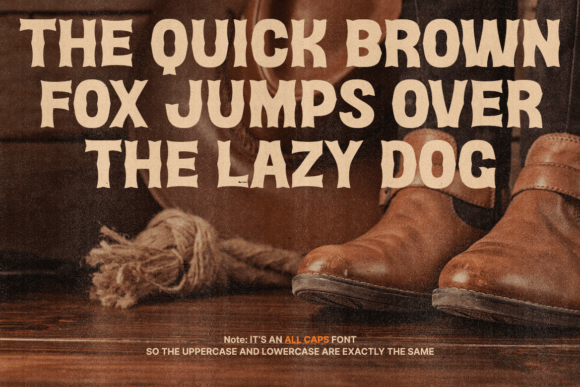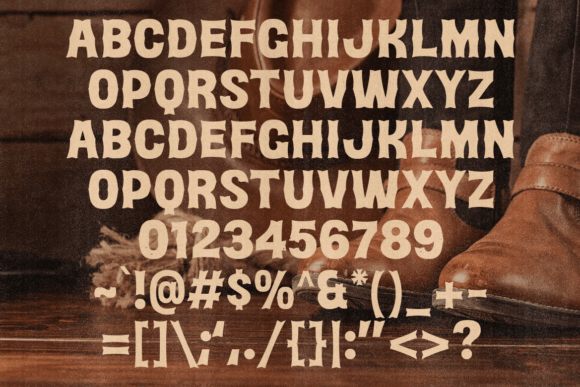
Introducing Benfuego Font: Unleash the Wild West Spirit in Your Designs
Are you ready to add a touch of rustic elegance and untamed energy to your designs? Look no further than the Benfuego Font, a remarkable rodeo-cowboy visual-inspired typeface that brings the thrill and grit of the Western frontier right to your fingertips. This meticulously crafted font pays homage to the daring rodeo riders, ropers, and wranglers, allowing you to saddle up your designs with the authentic spirit of the Wild West.
The Inspiration Behind Benfuego Font
The Benfuego Font is inspired by the rugged and adventurous world of rodeo cowboys. Its unique design elements capture the essence of the Wild West, from the bold and daring rodeo riders to the skilled ropers and wranglers. With Benfuego, you can bring the excitement and energy of the rodeo to your designs, adding a touch of authenticity and rugged charm.
Key Features of Benfuego Font
- Rodeo-Cowboy Visual Inspiration: Benfuego Font is carefully crafted to reflect the daring and adventurous spirit of rodeo cowboys, making it perfect for designs that require a touch of the Wild West.
- Rustic Elegance: The font’s unique design elements bring a sense of rustic elegance to your designs, adding a touch of sophistication and refinement.
- Untamed Energy: With Benfuego, you can infuse your designs with the untamed energy of the Wild West, making them stand out and grab attention.
- Versatile and Highly Readable: The Benfuego Font is designed to be highly readable, making it perfect for a wide range of design applications, from headings and titles to body text and more.
Whether you’re a designer, crafter, or DIY enthusiast, Benfuego Font is the perfect addition to your creative toolkit. With its unique and authentic Western-inspired design, you can create stunning designs that stand out from the crowd. From rustic wedding invitations and posters to bold logo designs and branding materials, Benfuego Font is the perfect choice for anyone looking to add a touch of the Wild West to their creations.
Use Cases for Benfuego Font
- Wedding Invitations and Stationery: Add a touch of rustic elegance to your wedding invitations, stationery, and other paper goods with Benfuego Font.
- Posters and Flyers: Create eye-catching posters and flyers that grab attention with the bold and daring design of Benfuego Font.
- Logo Design and Branding: Use Benfuego Font to create unique and memorable logos and branding materials that reflect the spirit of the Wild West.
- Packaging and Product Design: Add a touch of rustic charm to your packaging and product designs with Benfuego Font, perfect for food, beverage, and lifestyle products.
Get Ready to Saddle Up Your Designs!
With Benfuego Font, you can unleash your creativity and bring the thrill and grit of the Western frontier to your designs. Whether you’re a seasoned designer or a DIY enthusiast, Benfuego Font is the perfect choice for anyone looking to add a touch of rustic elegance and untamed energy to their creations. So why wait? Saddle up your designs with Benfuego Font today and get ready to wrangle those compliments!
| Font Name | Benfuego Font |
| Author | konstantinestudio |
In conclusion, Benfuego Font is a remarkable rodeo-cowboy visual-inspired typeface that brings the spirit of the Wild West to your designs. With its unique design elements, rustic elegance, and untamed energy, Benfuego Font is perfect for designers, crafters, and DIY enthusiasts looking to add a touch of authenticity and rugged charm to their creations. So why wait? Download Benfuego Font today and start creating stunning designs that stand out from the crowd!